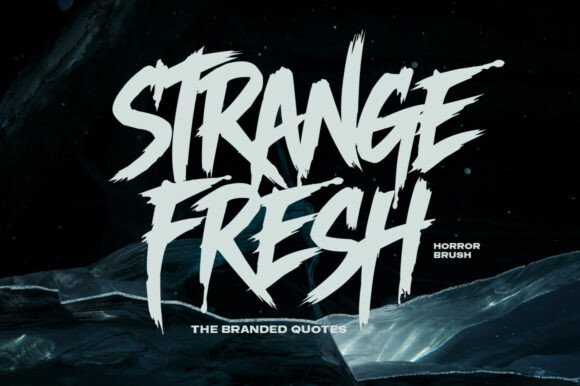
Strange Fresh: The Typeface That Breaks the Mold
A Design Rebel with a Purpose
Strange Fresh isn't just another font you download and forget. It's a deliberate design choice for projects that need to stand out. This typeface carries the visual DNA of horror movie posters, punk zines, and gritty street art, yet it's refined enough to work in contemporary branding. Every brushstroke and drip effect feels intentional, giving your text a hand-crafted quality that digital fonts often lack.
What makes Strange Fresh work is its balance between chaos and control. The letterforms have that raw, textured edge you'd find on vintage cinema posters or album covers, but the underlying structure keeps everything legible. You get the energy of underground art without sacrificing the clarity your project needs.
Where Strange Fresh Shines
This font excels in contexts where you want to make an immediate visual impact. Think about your next album cover design, event poster, or brand identity project. Strange Fresh brings that unmistakable presence that makes people stop scrolling or pause when they see it on a shelf.
For logo design, especially in music, entertainment, fashion, or creative industries, this typeface gives brands an authentic edge. It communicates creativity and boldness without feeling cheap or trendy. The textured details add depth that flat, clean fonts simply can't achieve.
In packaging design, Strange Fresh works particularly well for products targeting audiences who appreciate craft, authenticity, and artistic expression. Imagine it on craft beer labels, vinyl record sleeves, or artisanal food packaging. The font's personality tells customers this product was made with care and creative vision.
Editorial design and social media graphics benefit from Strange Fresh's attention-grabbing qualities. Magazine headlines, blog post graphics, and Instagram stories all gain visual interest when set in this typeface. It's particularly effective for content about music, film, art, and culture where a bold aesthetic makes sense.
Practical Considerations for Your Projects
Before choosing Strange Fresh for any project, consider your audience and context carefully. This is a display font, meaning it works best at larger sizes where its details can breathe. For body text or small captions, you'll want to pair it with a clean sans serif font or even a simple serif font that complements without competing.
Font pairing is crucial with a typeface this distinctive. Strange Fresh needs a partner that's more restrained—think classic sans serifs like Helvetica or Futura, or even a simple script font for contrast. The goal is to let Strange Fresh own the headlines while supporting text remains readable and unobtrusive.
Readability is worth testing before committing. While Strange Fresh maintains good legibility at appropriate sizes, the textured details can get lost at very small scales. Always test your designs at actual viewing distances and sizes. Print a sample or view on multiple screens to ensure your message comes through clearly.
The font comes in two styles—Regular and Slant—giving you flexibility within the same aesthetic. The Slant version adds dynamic energy, perfect for motion graphics or designs that need a sense of movement. Both versions include ligatures for advanced typographic setups, allowing more natural letter connections where appropriate.
Understanding the Technical Side
The character set covers the full basic alphabet, punctuation, and numerals—everything you need for most commercial font applications. The optimized kerning means letters sit well together without extensive manual adjustment, saving you time during the design process.
For web design applications, you'll want to consider how the textured details render on different screens. The crisp vector construction ensures clean rendering, but testing across devices is always wise. Some designers use Strange Fresh primarily for hero images or graphic elements rather than live web text, which is a practical approach that maintains the font's impact while ensuring consistent display.
Making the Right Choice
Choosing any premium font requires honest evaluation of your project needs. Strange Fresh serves a specific purpose: it's for creatives who want their work to feel authentic, bold, and artistically driven. If your brand identity leans toward clean minimalism or corporate professionalism, this probably isn't your primary typeface.
However, if you're designing for audiences who value creativity, artistic expression, and distinctive aesthetics, Strange Fresh deserves serious consideration. It's particularly effective for small business owners in creative fields who want to differentiate themselves from competitors using the same overused fonts.